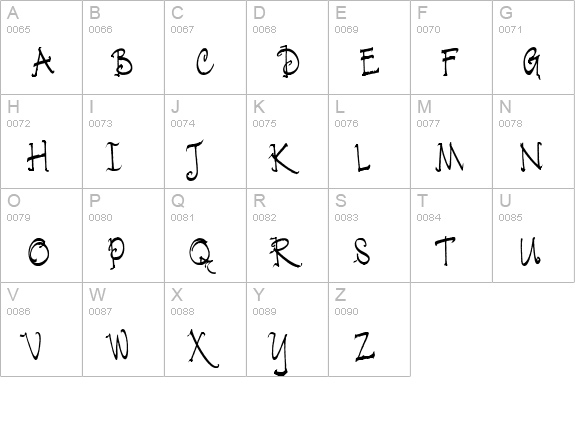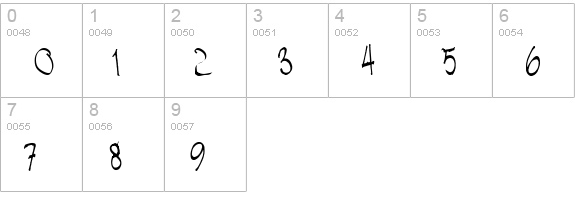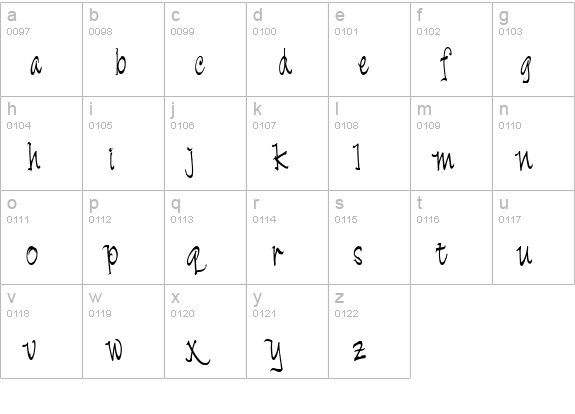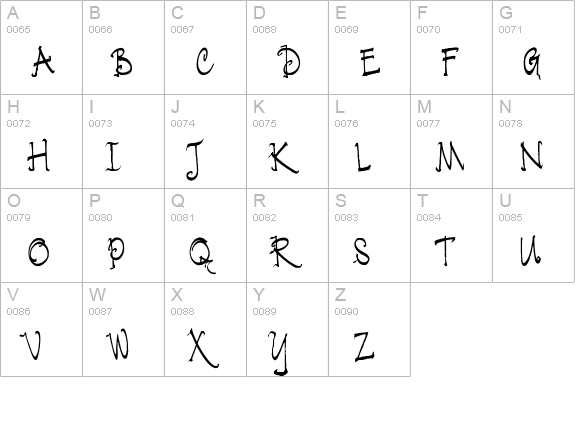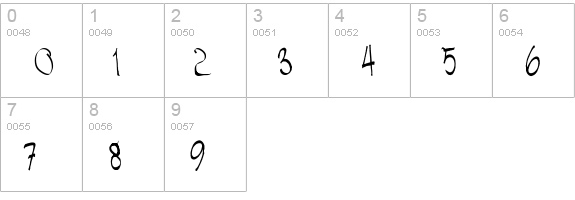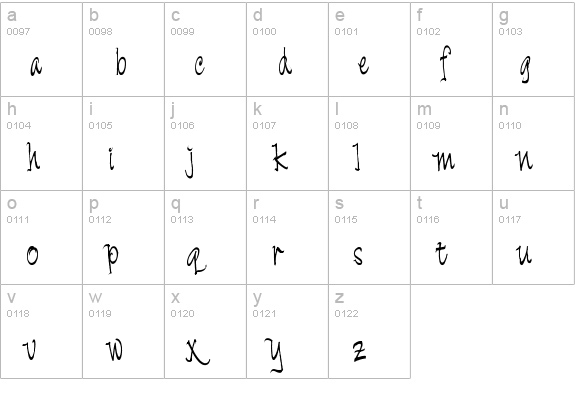
Cratch Font Details
Introducing Cratch font - a stylish and modern typeface that is perfect for a wide range of design projects. With its sleek lines and elegant curves, Cratch font exudes sophistication and charm. Whether you're creating a logo, designing a website, or crafting a poster, this versatile font is sure to make your text stand out. What's even better is that Cratch font is completely free to download! That's right, you can easily access this stunning font at FontsMarket.com without any cost. So why wait? Add Cratch font to your collection today and elevate your designs with its timeless appeal.